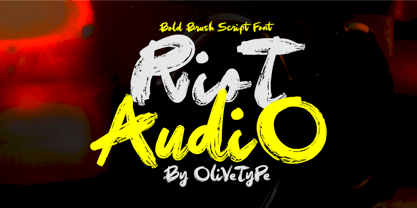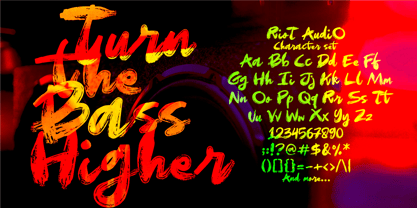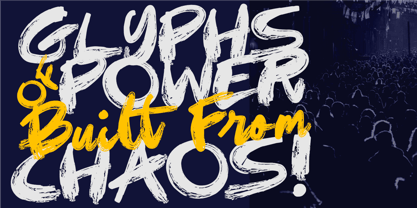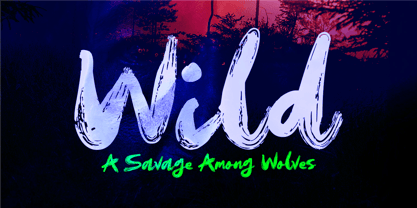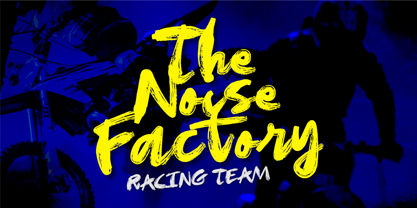
Riot Audio
by Olivetype
The Riot Audio Font Family was designed by Nurul Hidayani and published by Olivetype. Riot Audio contains 1 styles. More about this family
Riot Audio is a bold brush font that delivers explosive energy, raw movement, and rebellious street vibes. Designed with rough dry brush textures and powerful handwritten strokes, this font is perfect for music posters, streetwear branding, gaming titles, movie headlines, album covers, YouTube thumbnails, sports designs, and urban advertising. Riot Audio combines aggressive brush lettering with modern grunge aesthetics, creating a loud and fearless visual style that instantly grabs attention. Whether you are building a bold logo, action-themed artwork, or edgy social media content, Riot Audio brings authentic hand-painted character and high-impact attitude to every project.